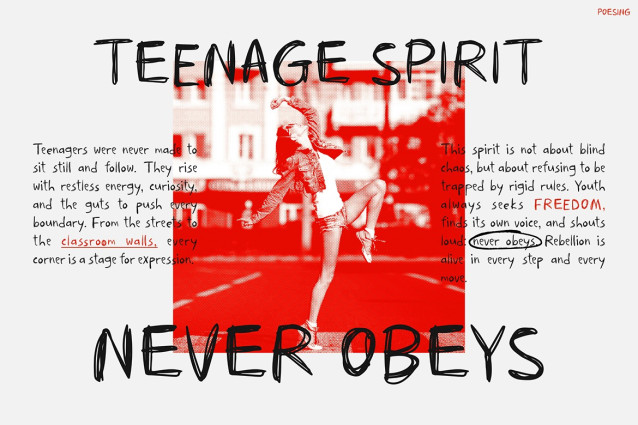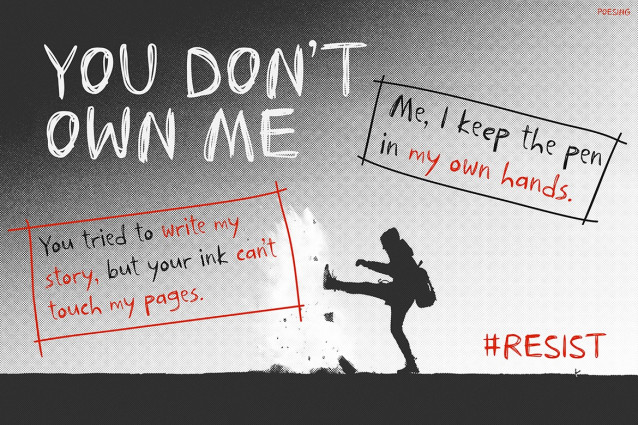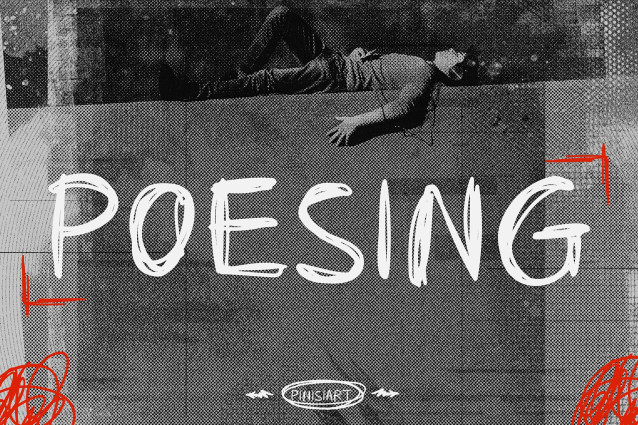
Poesing Brush Font
Poesing Brush Font is not just there, it is rebellious in every stroke. Unlike polished typefaces, this font embraces imperfections and turns them into raw visual power. Moreover, its sharp edges, bold slant and scribbled texture bring authenticity, turning ordinary words into powerful statements. As a result, every design you create is bursting with powerful energy.
Graffiti walls, protest posters and underground culture have inspired this font. Poesing captures the spirit of youthful freedom, refusing to be silent and demanding to stand out. On the other hand, this font easily adapts to modern layouts, showing flexibility and boldness. Moreover, this font combines rough art with bold expression, ensuring your projects always attract attention.